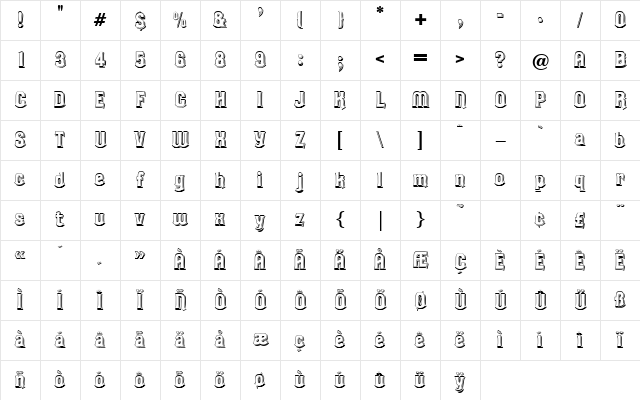
Lender Regular
Design Context for Lender
Lender is a composed and adaptable typeface that performs quietly and consistently across a wide range of design contexts.
Pro Tip: Use Lender in both headline and body roles to test its range before committing to a single application.